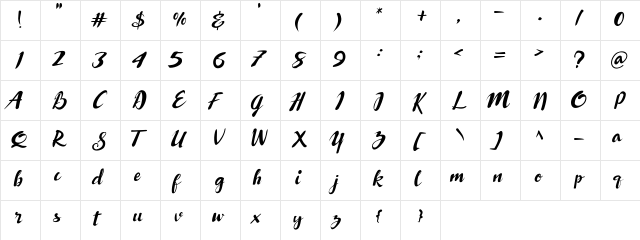
Rabusto Regular
| Foundry | Famco Typefoundry |
| Designer | Famco Typefoundry |
Design Context for Rabusto Typeface
Rabusto is a composed and adaptable typeface that performs quietly and consistently across a wide range of design contexts.